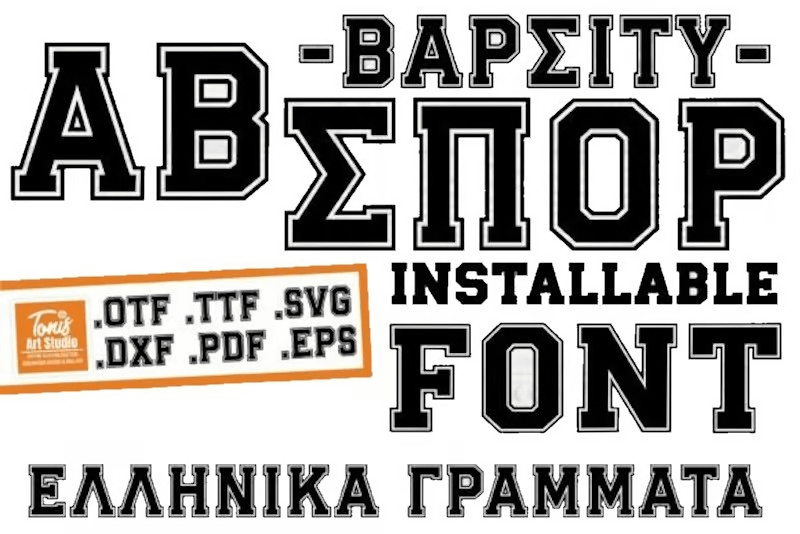
Greek Lettering Font | Installable Font
Installable Greek alphabet in a stylish and versatile design. Perfect for incorporating Greek letters into your DIY creations, this Greek font set is ideal for a wide range of projects, from apparel to home decor. Elevate your crafting game with the timeless elegance of Greek writing and make a statement with every piece you create.